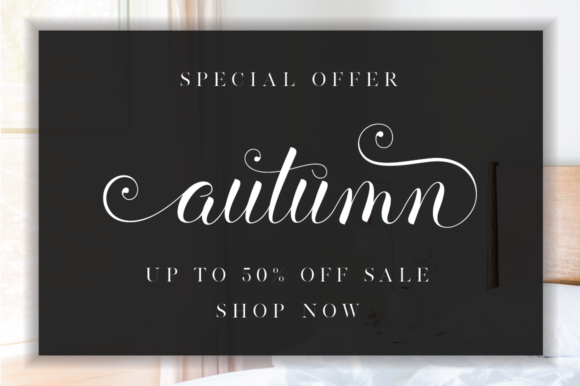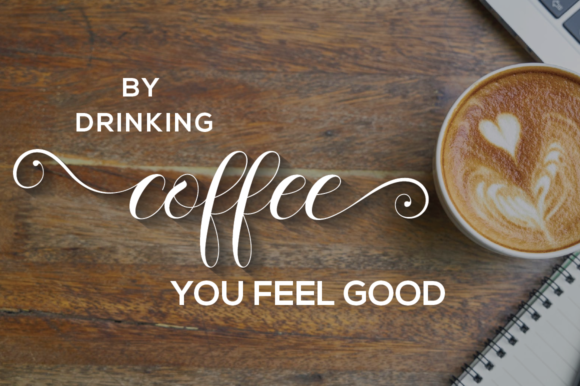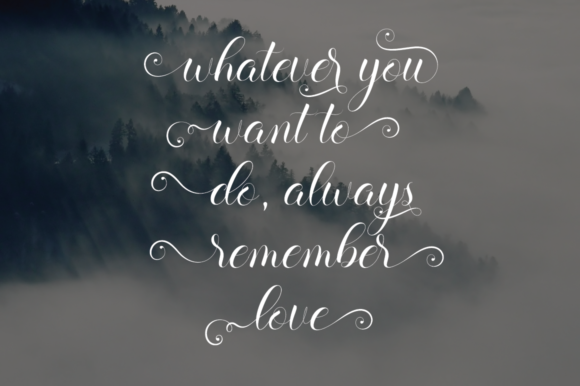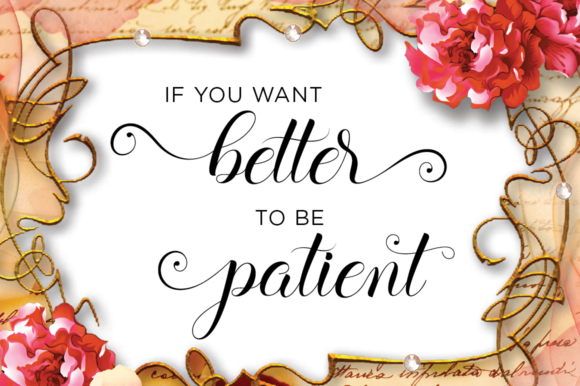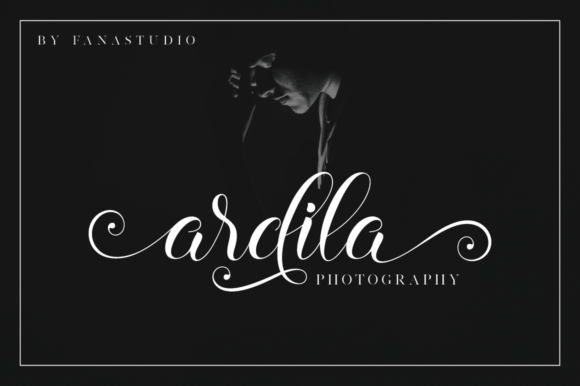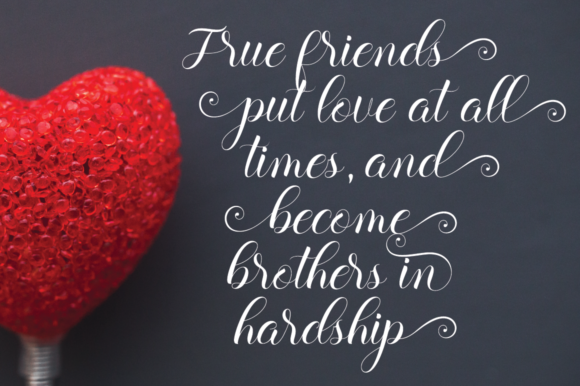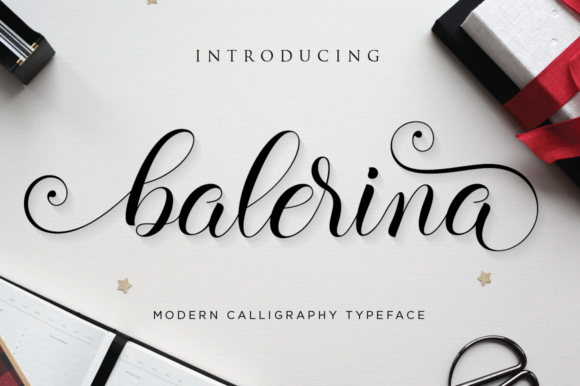
Step into the World of Elegant Typography
Have you ever found yourself gazing at a beautifully designed sign or invitation, wondering how the creator achieved that perfect blend of style and sophistication? As designers, we’ve all been there – searching for the perfect font to elevate our DIY projects and leave a lasting impression. That’s where the Balerina Script Font comes in, offering a gorgeous typographic style that’s sure to captivate your audience.
This versatile font is perfect for a wide range of DIY projects, from wedding invitations to custom signs and everything in between. With its elegant and refined look, the Balerina Script Font is a valuable addition to any designer’s toolkit. Whether you’re a seasoned pro or just starting out, this font is sure to help you create stunning designs that will leave a lasting impression.
Balerina Script Font Key Features
- Font Style: Elegant, cursive script font with a touch of sophistication.
- Unique Characteristics: Features a flowing, handwritten feel with subtle flourishes and connections between letters.
Balerina Script Font Review
Overall, I think Balerina Script Font is a beautiful, elegant font that can add a touch of sophistication to any design. ✨ It’s perfect for creating invitations, wedding stationery, or any other design that needs a romantic and whimsical feel. The font is highly customizable, with a wide range of style options and pairing possibilities.
- Unique, cursive design that sets it apart from other script fonts
- Highly customizable with various style options and pairings
- Works well for invitations, wedding stationery, and other romantic designs
However, like any font, Balerina Script Font has its limitations. ⚠️ For one, it can be a bit challenging to read, especially at smaller font sizes. Additionally, it may not be suitable for designs that require a more straightforward or modern aesthetic.
- May be difficult to read at smaller font sizes
- Not suitable for modern or straightforward designs
Overall, I would give Balerina Script Font 4 out of 5 stars. While it’s a stunning font with many possibilities, it may not be the best choice for every design project. With careful consideration and customization, however, it can be a beautiful addition to your design repertoire.
Balerina Script Font is ideal for creating elegant and sophisticated designs, such as:
Branding and logos
Editorial and publishing design
Tips for getting the most out of Balerina Script Font:
Use it sparingly to create emphasis and visual interest.
Pair it with other elegant fonts for a balanced look.
Alternatives to Balerina Script Font
Pacifico is a beautiful, elegant script font that is perfect for adding a touch of sophistication to your designs. It has a relaxed, casual feel that makes it ideal for use in branding, logos, and marketing materials. Unlike Balerina Script Font, Pacifico has a more open and airy feel, making it perfect for use in large blocks of text.
Great Vibes is a modern, elegant script font that is designed to evoke a sense of luxury and sophistication. It has a more refined and polished feel than Balerina Script Font, making it perfect for use in high-end branding, packaging, and marketing materials. Great Vibes is also highly legible, making it perfect for use in large blocks of text.
Carolyna Pro is a elegant, sophisticated script font that is perfect for use in high-end branding, packaging, and marketing materials. It has a more refined and polished feel than Balerina Script Font, making it perfect for use in applications where a touch of luxury is desired. Carolyna Pro is also highly legible, making it perfect for use in large blocks of text.